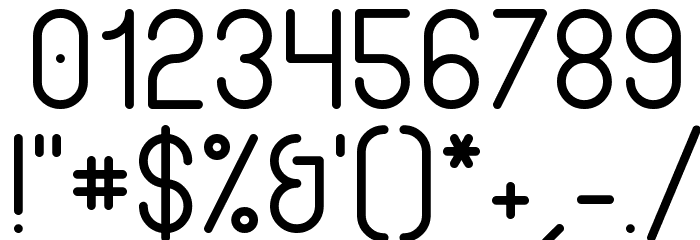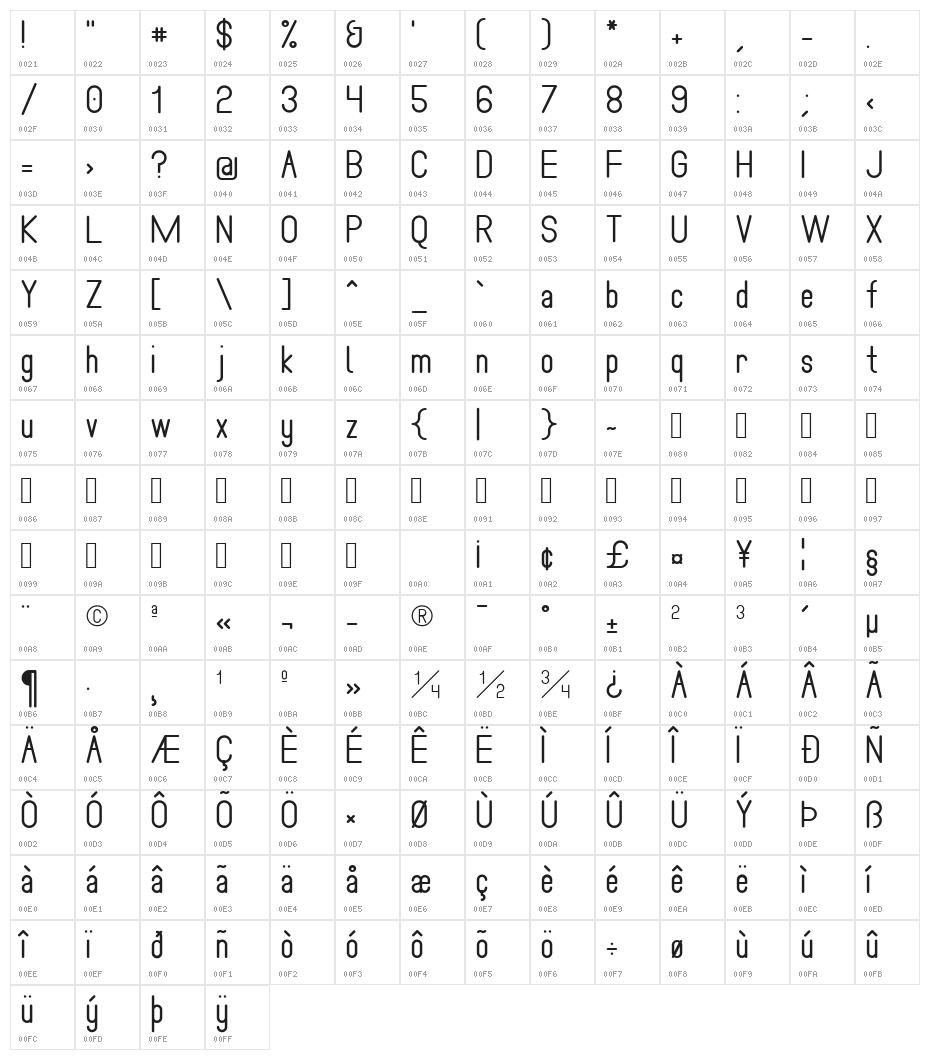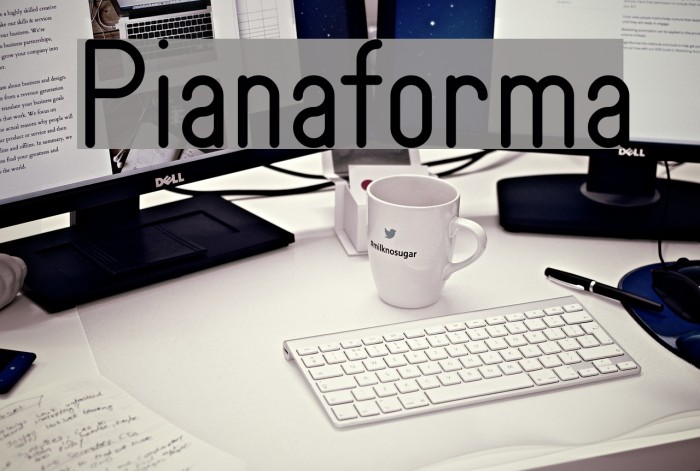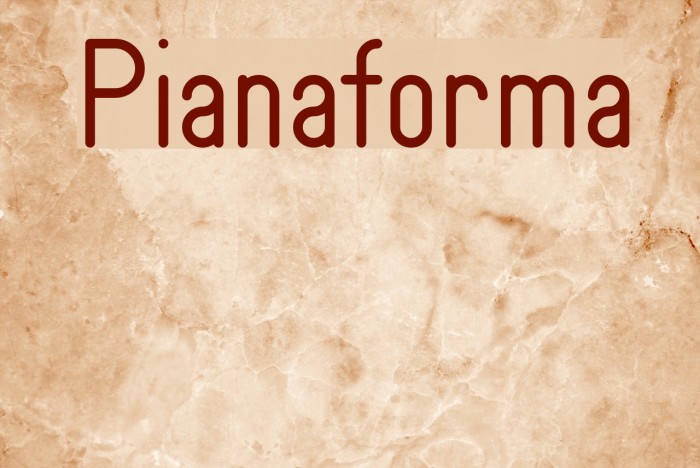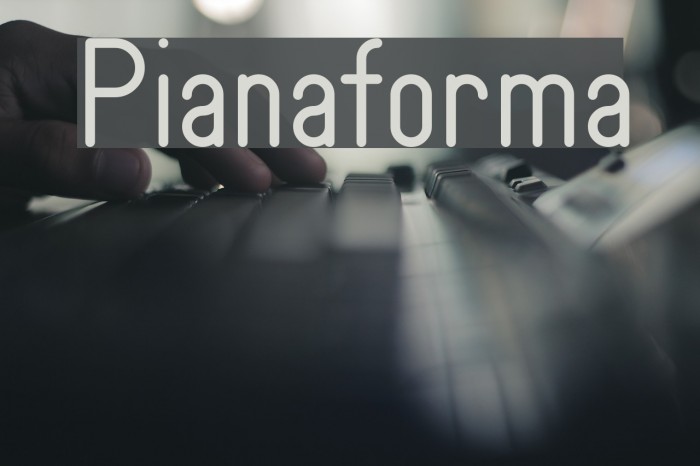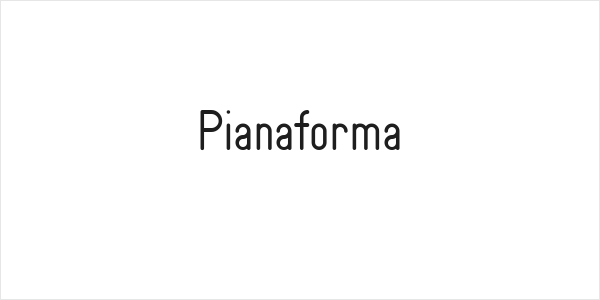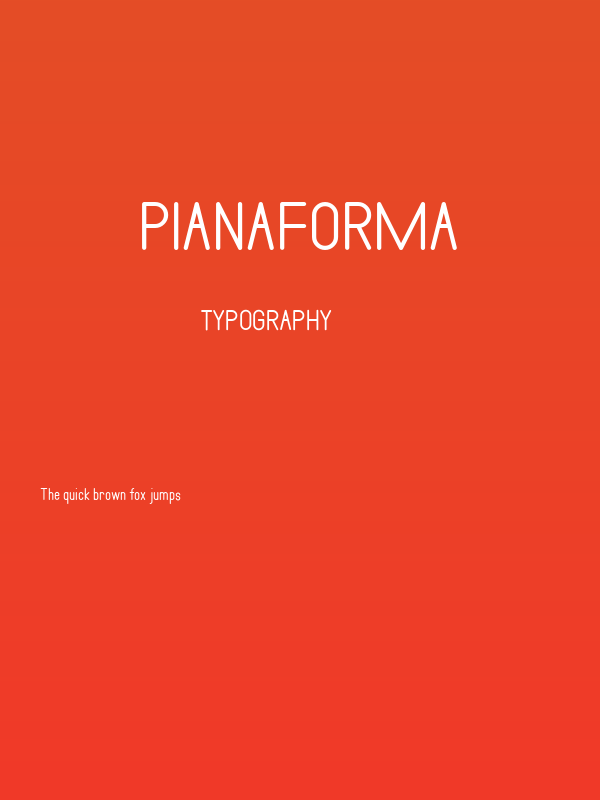
Pianaforma Font
Pianaforma Description
This font features a clean and modern sans-serif design with rounded edges, giving it a friendly and approachable appearance. The characters are evenly spaced, contributing to its readability. The uppercase and lowercase letters maintain a consistent style, with a slight variation in stroke width that adds a subtle contrast. The numerals are clear and distinct, making them suitable for various applications. Special characters are well-integrated, maintaining the overall aesthetic of the font. Its simplicity and clarity make it versatile for both digital and print media.
| Proposed Projects | Ideal for branding, web design, user interfaces, and educational materials. |